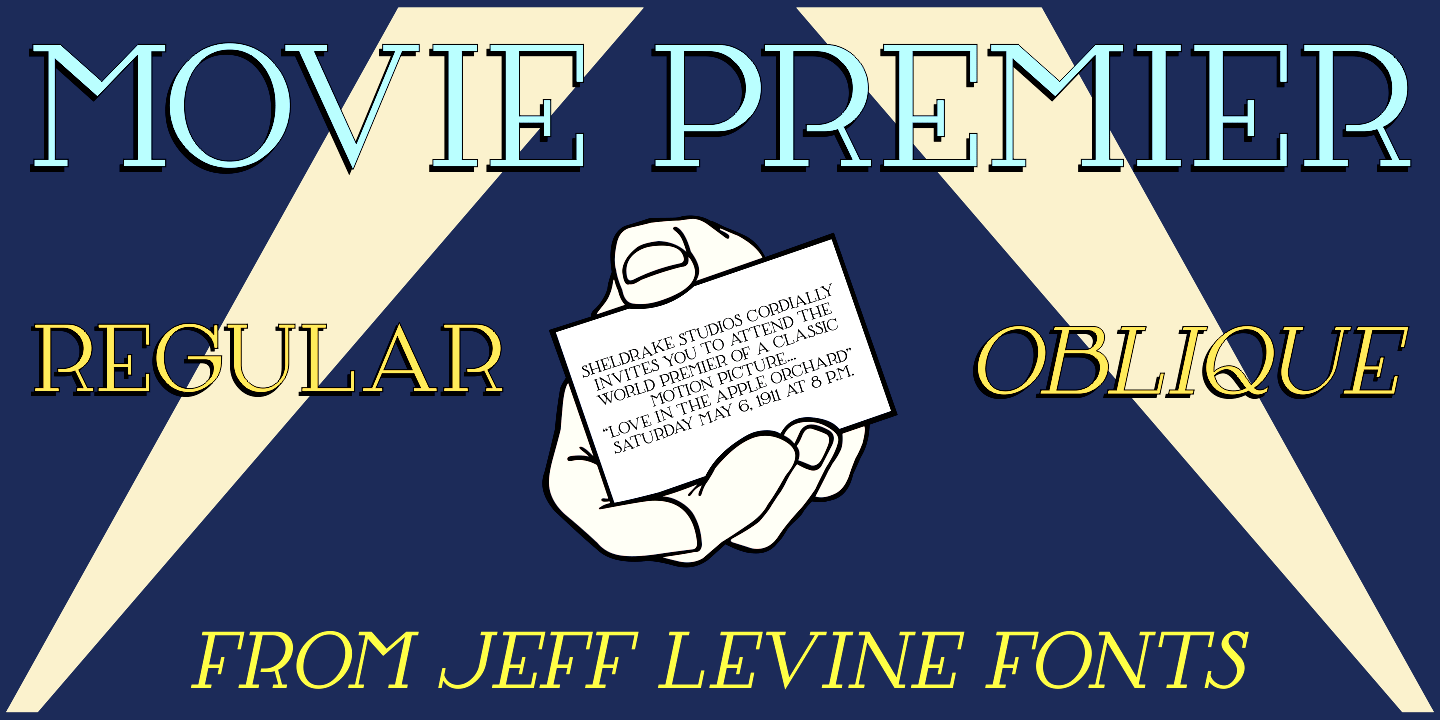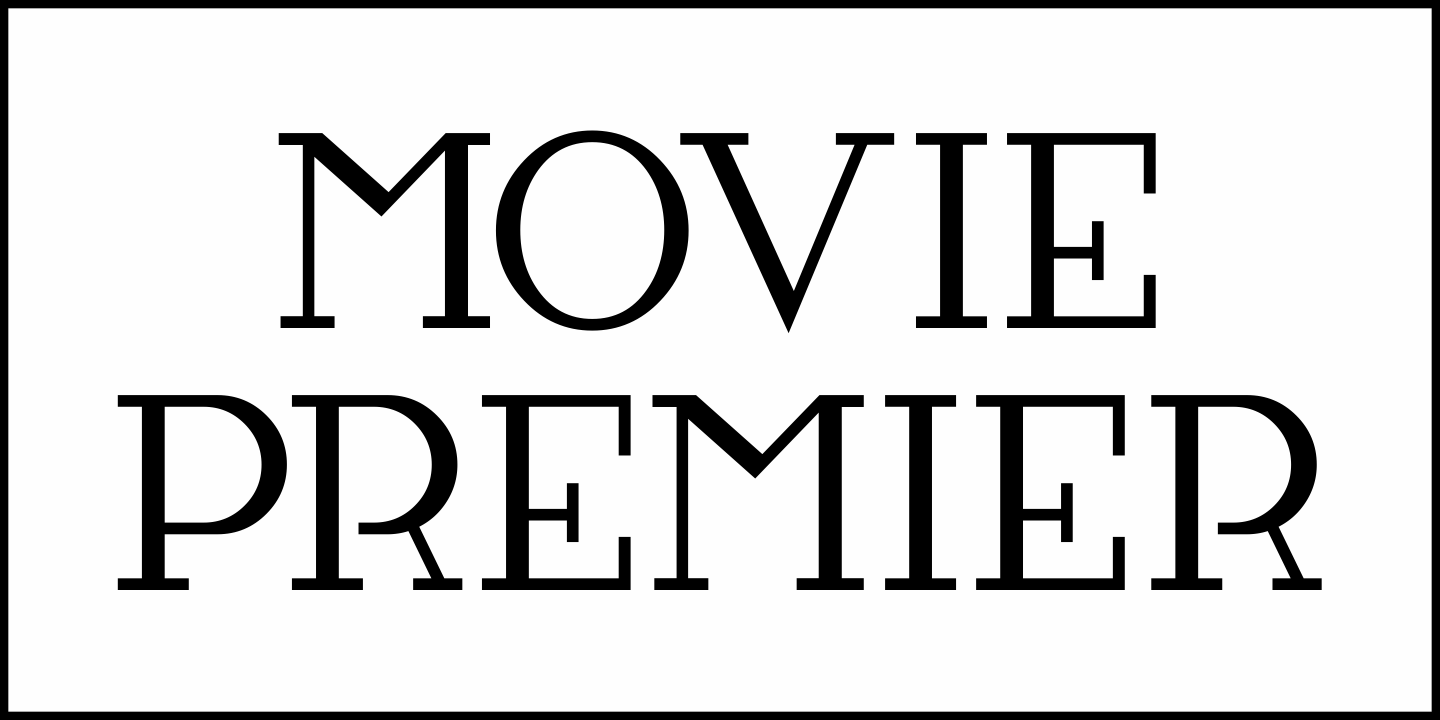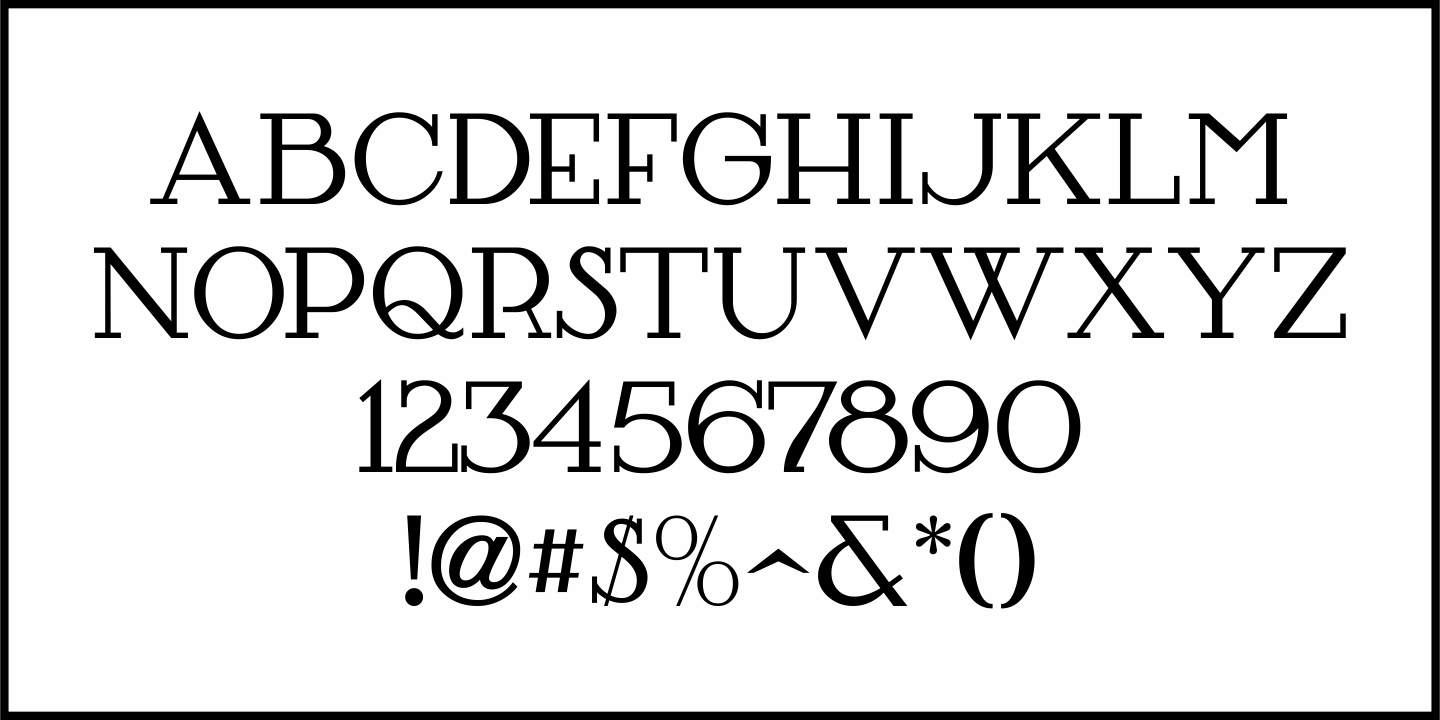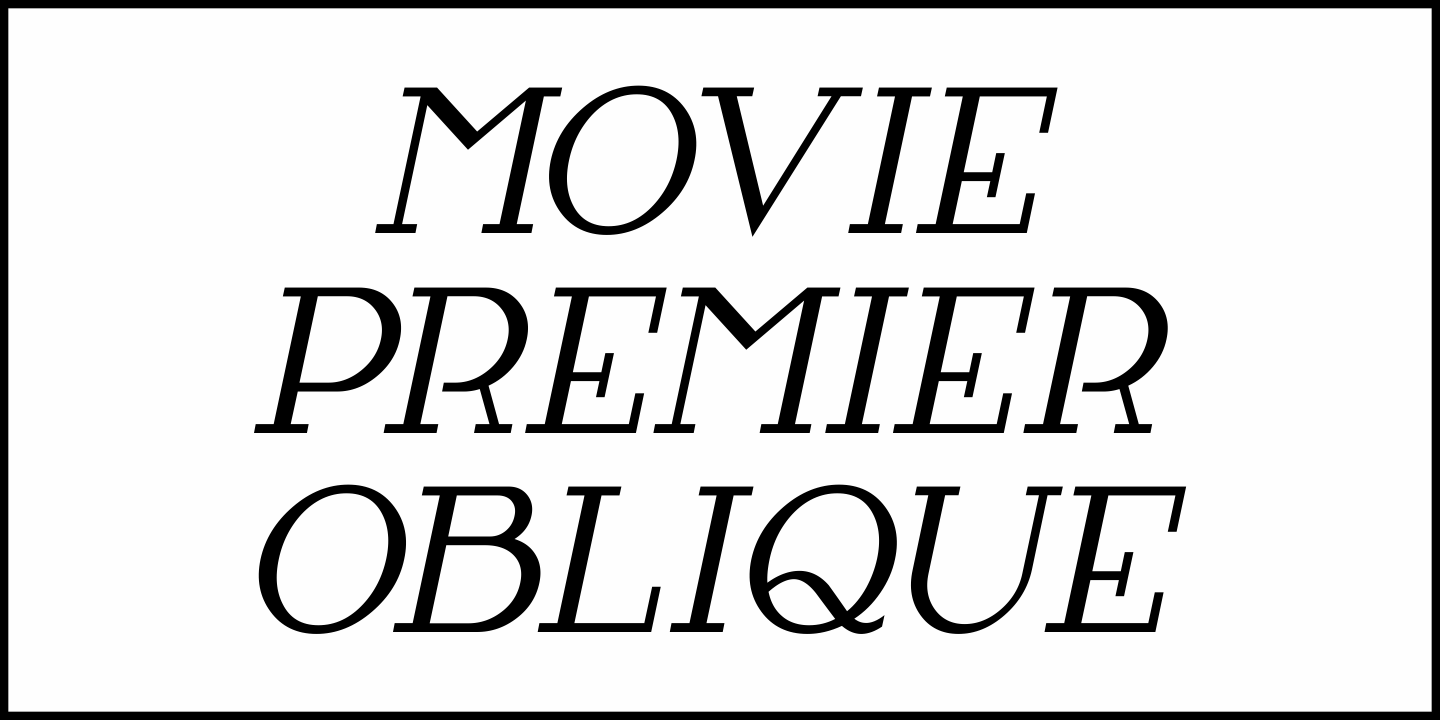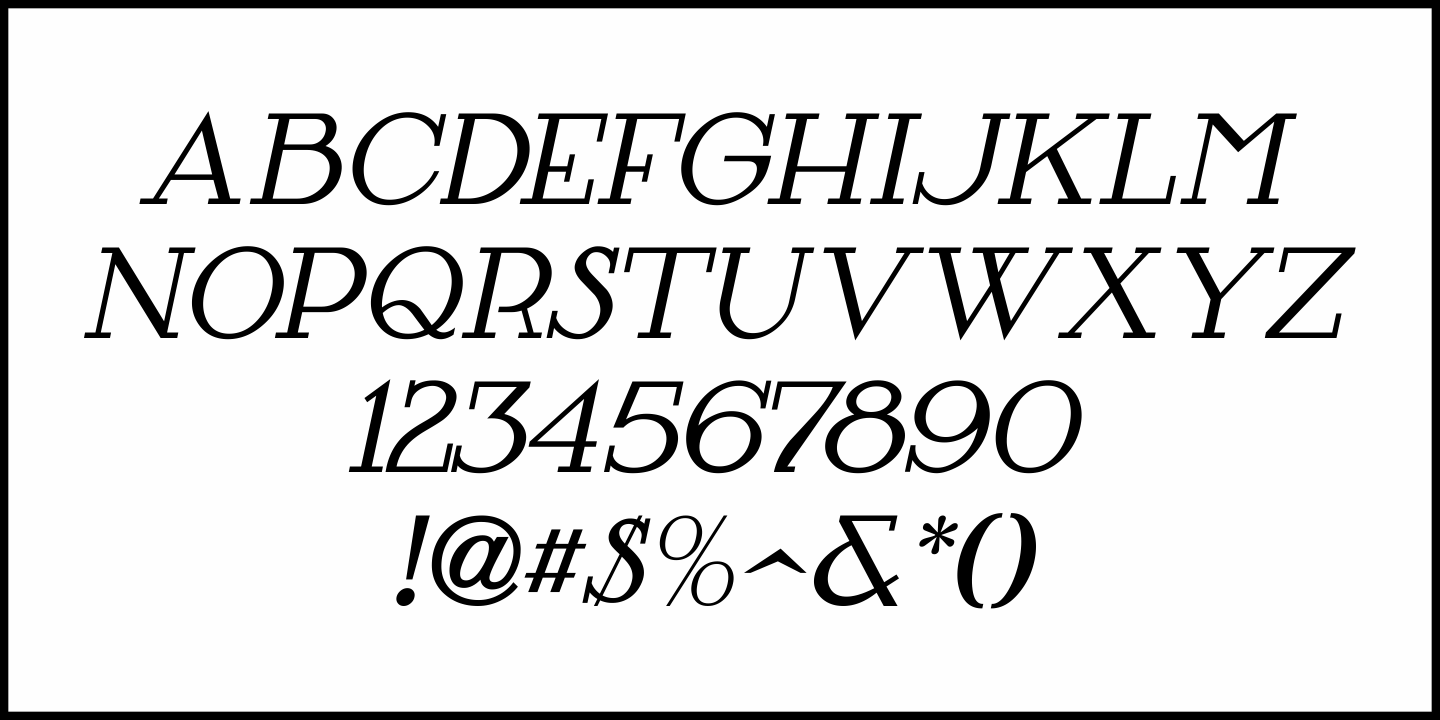
Movie Premier
In the March 11, 1911 issue of Moving Picture News, various topic titles were hand lettered in an Art Nouveau style with squared serifs.
This inspired Movie Premier JNL, which is available in both regular and oblique versions.